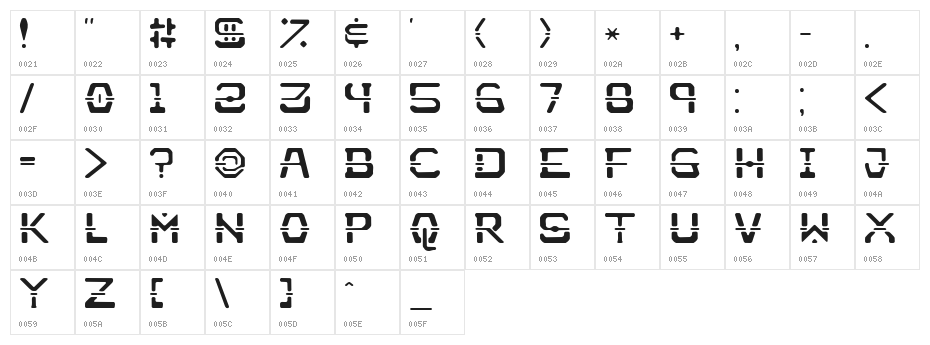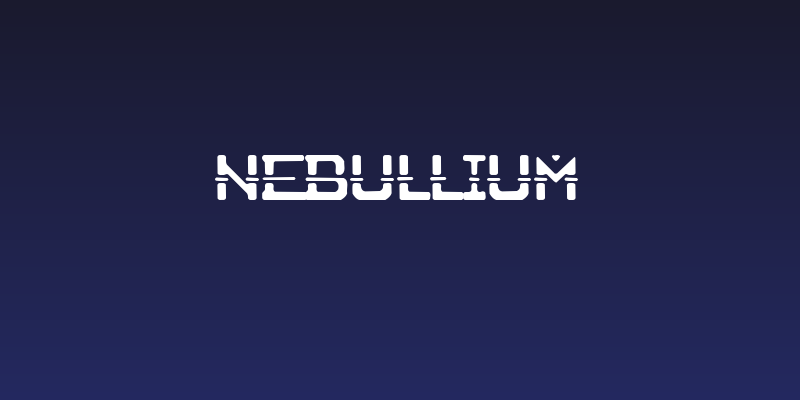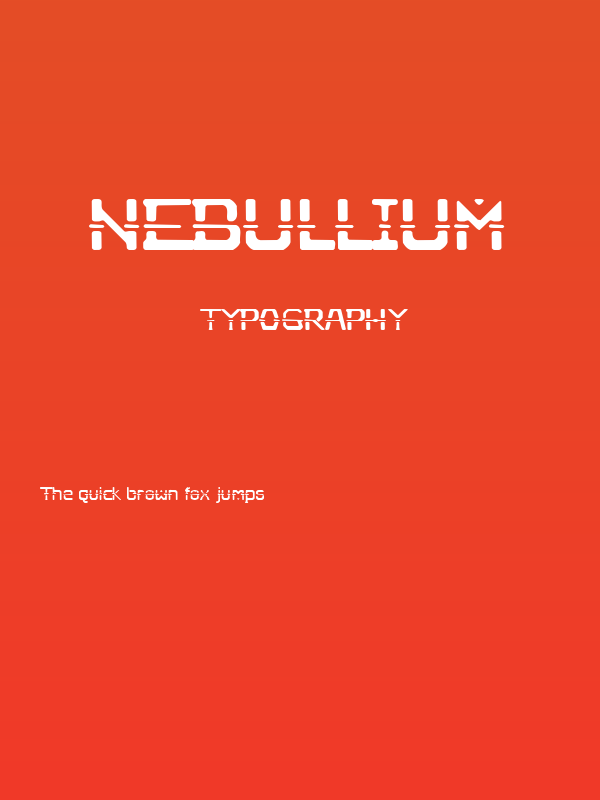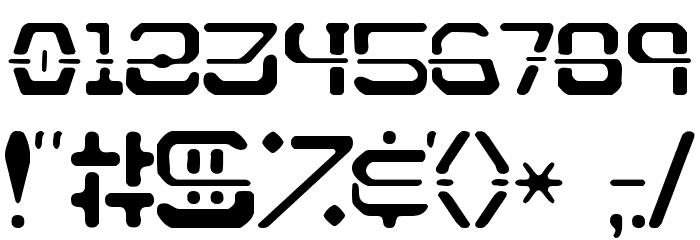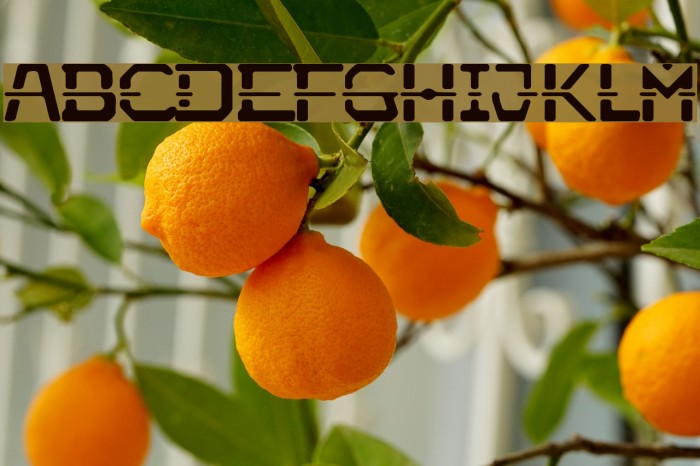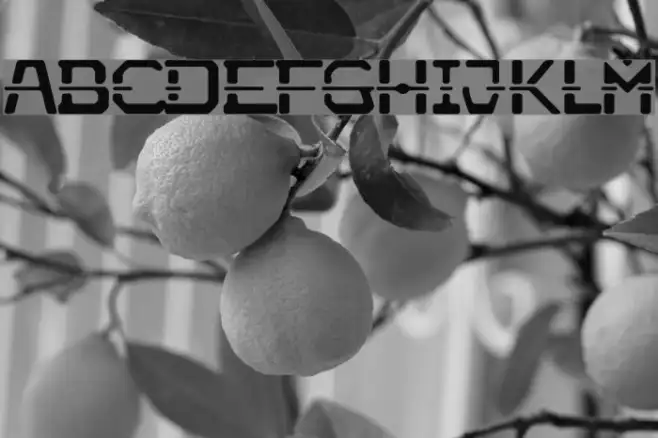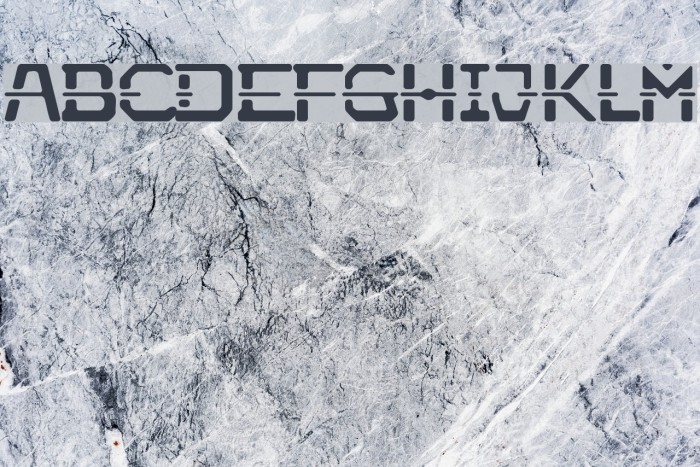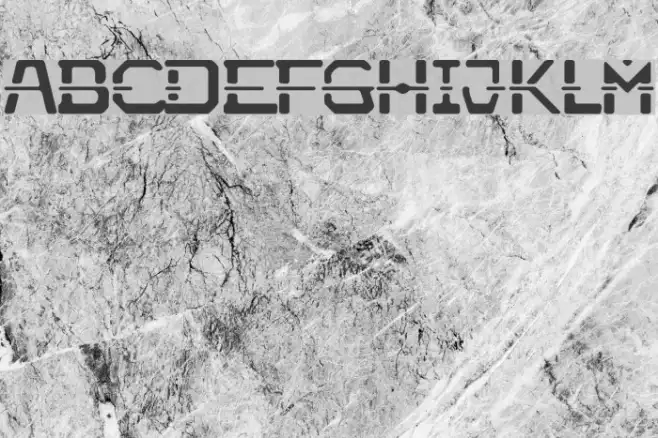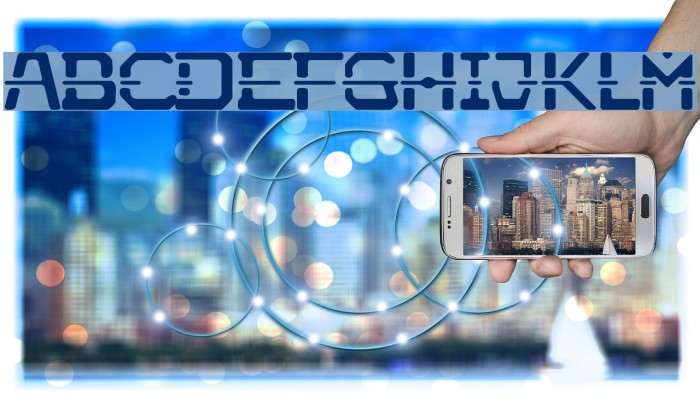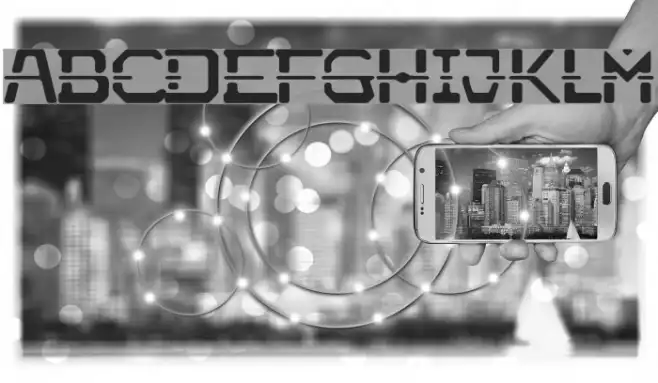
Nebullium Font
Nebullium Description
This font features a futuristic and geometric design with a stencil-like appearance. The characters are composed of bold, angular lines with distinct cutouts, giving it a mechanical and industrial feel. The uppercase and lowercase letters maintain a consistent style, with a focus on symmetry and precision. Numbers and special characters follow the same design principles, ensuring a cohesive look across all glyphs. The font's unique style makes it stand out, suitable for projects that require a modern and edgy aesthetic.
| Use Case | Logos, Headlines, Posters |
| Proposed Projects | Ideal for sci-fi themed designs, technology branding, video game titles, and modern posters. |